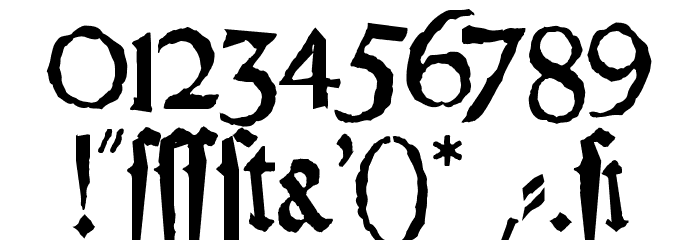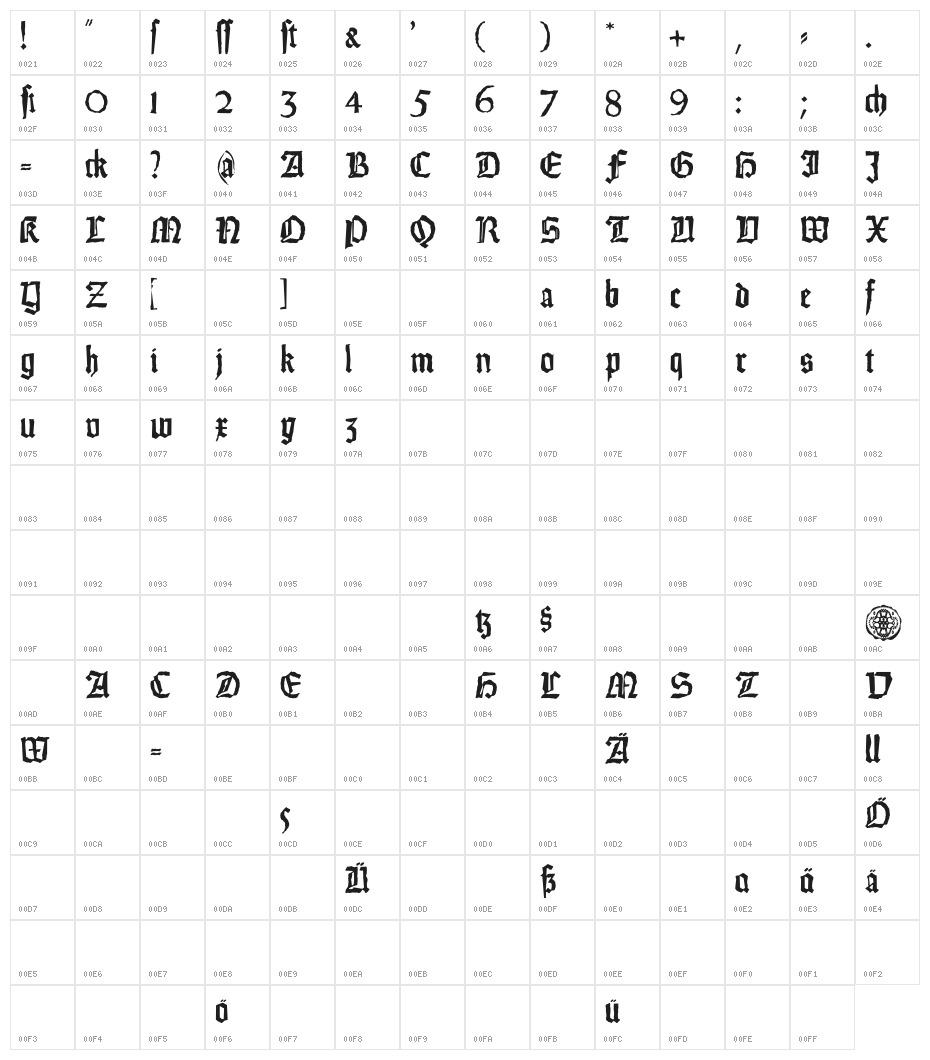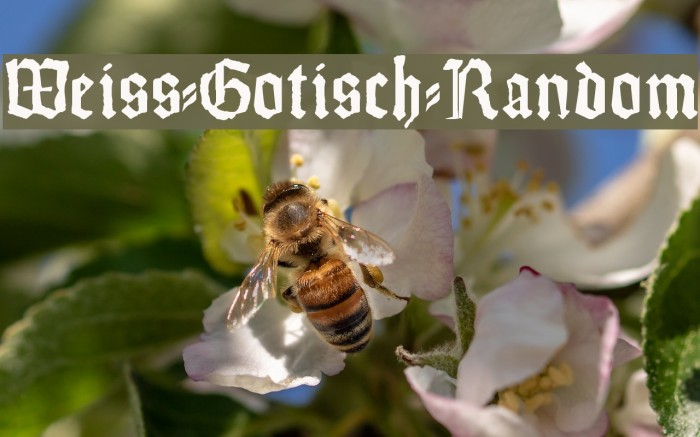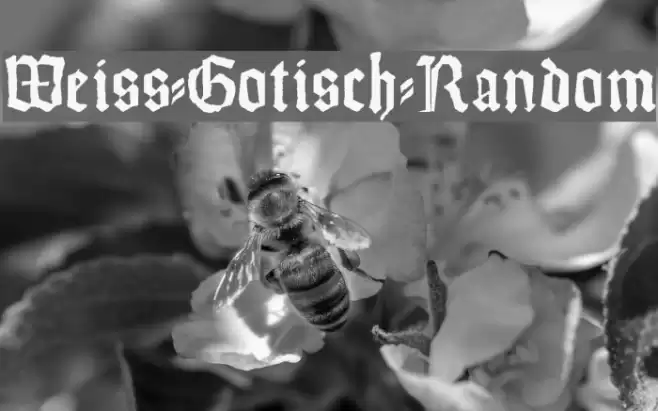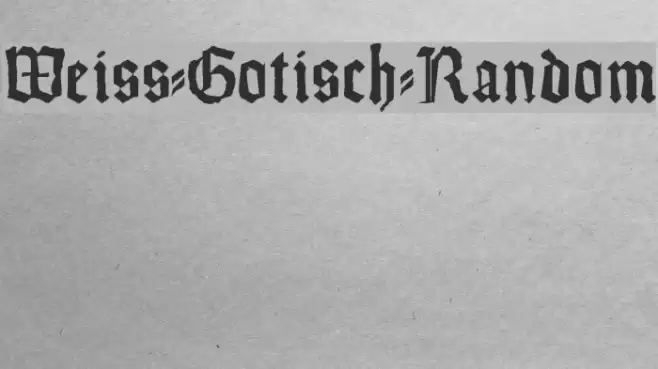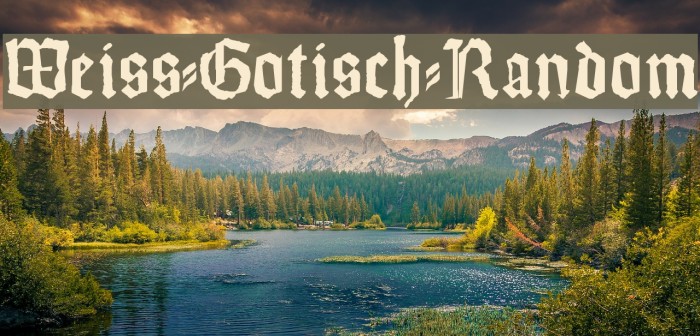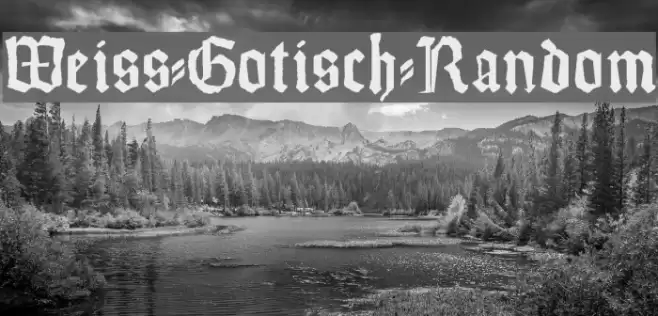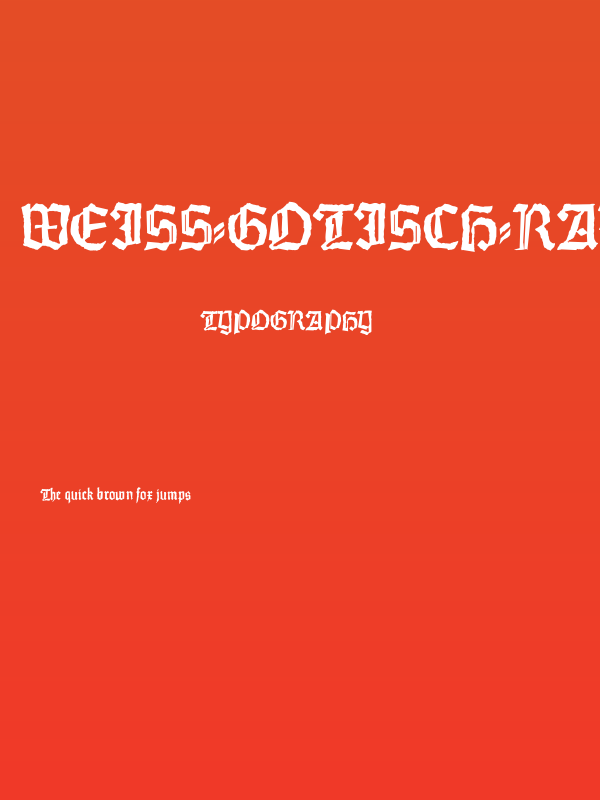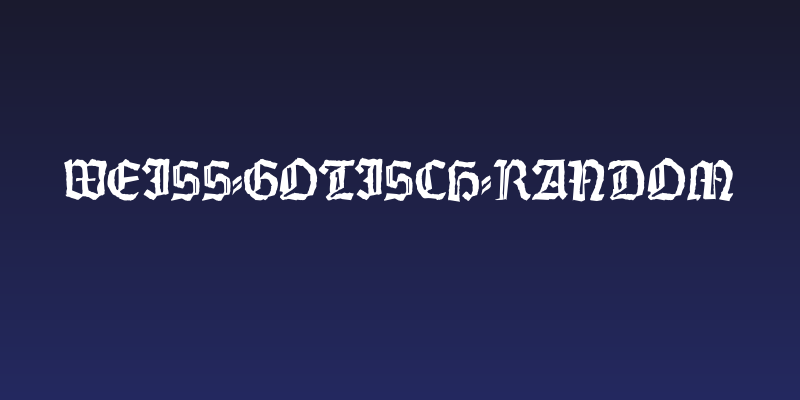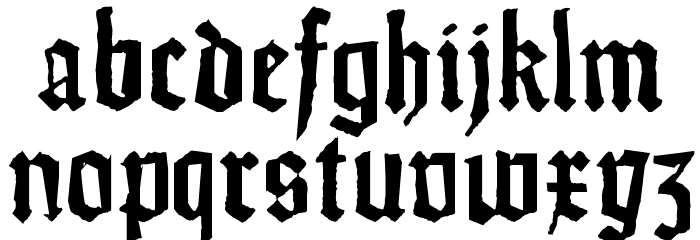
Weiss-Gotisch-Random Font
Weiss-Gotisch-Random Description
This font embodies a traditional blackletter style, characterized by its bold, angular strokes and intricate detailing. The uppercase letters are ornate, with sharp edges and a distinct medieval flair, while the lowercase letters maintain a similar aesthetic with slightly more fluidity. The numerals are consistent with the gothic theme, featuring dramatic curves and pointed terminals. Special characters are equally elaborate, adding to the overall decorative nature of the font. This typeface evokes a sense of history and tradition, making it ideal for projects that require a touch of classic elegance.